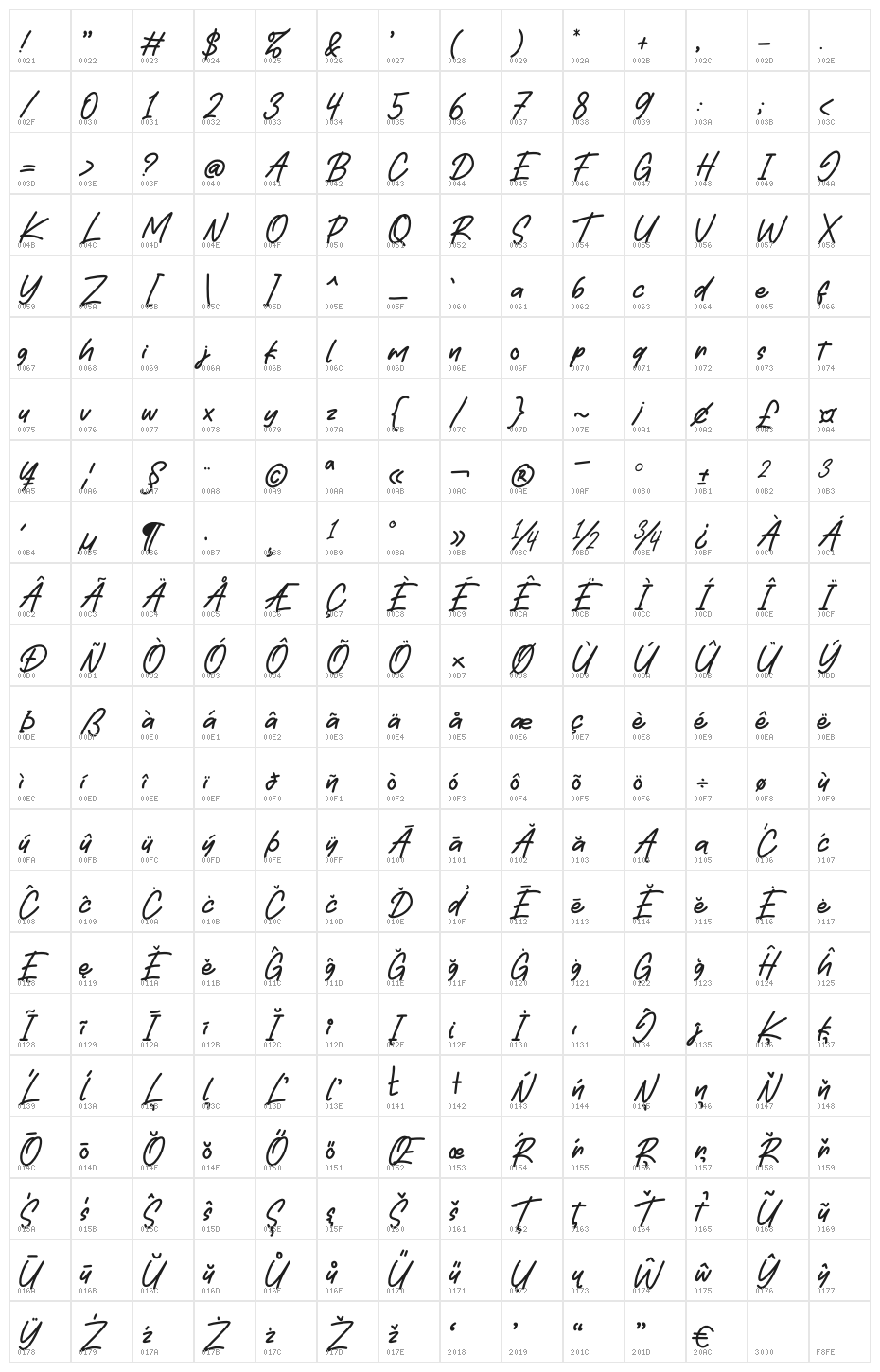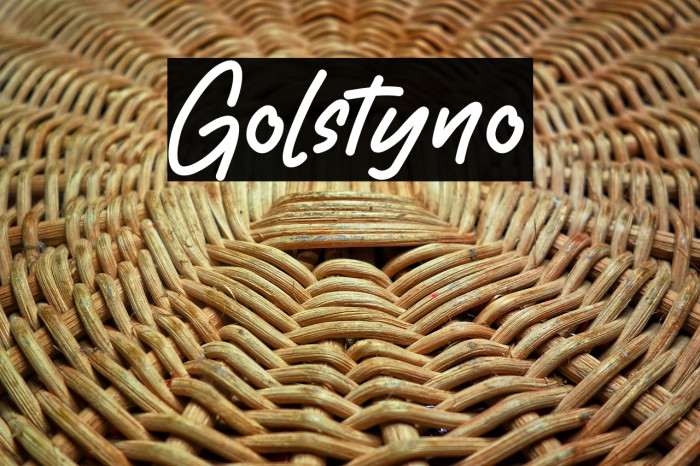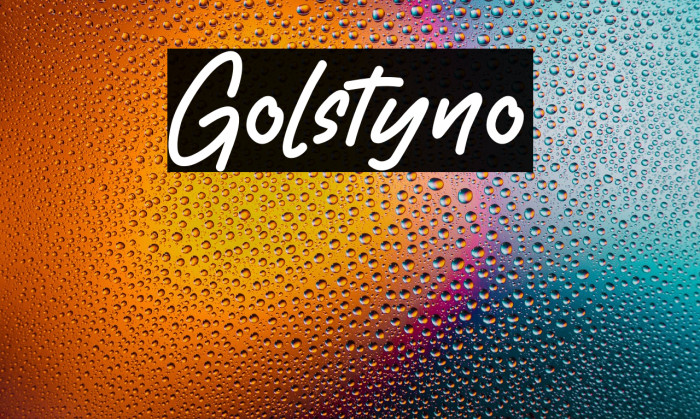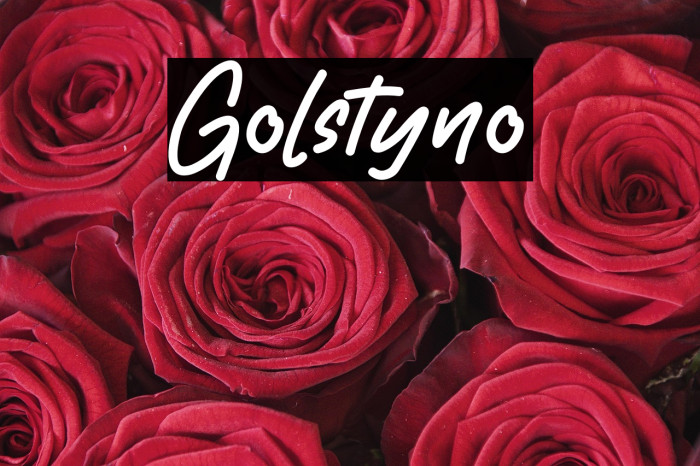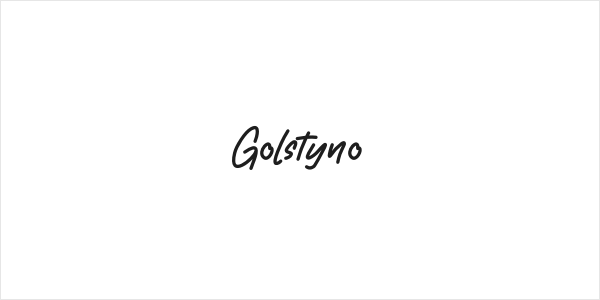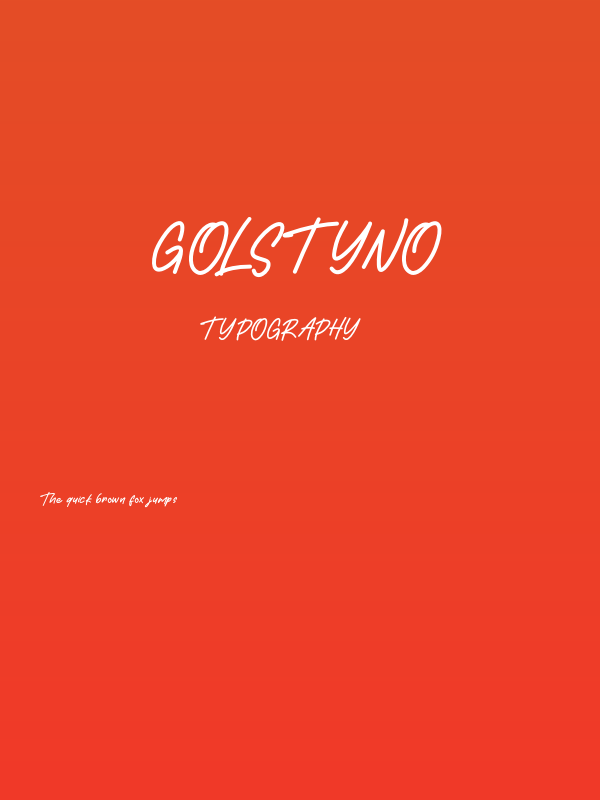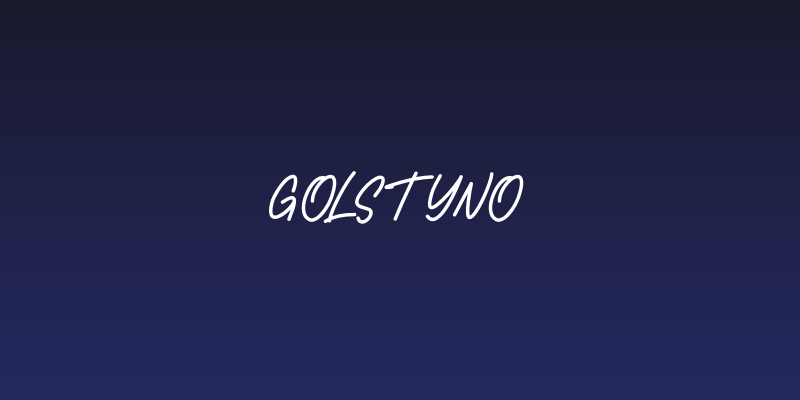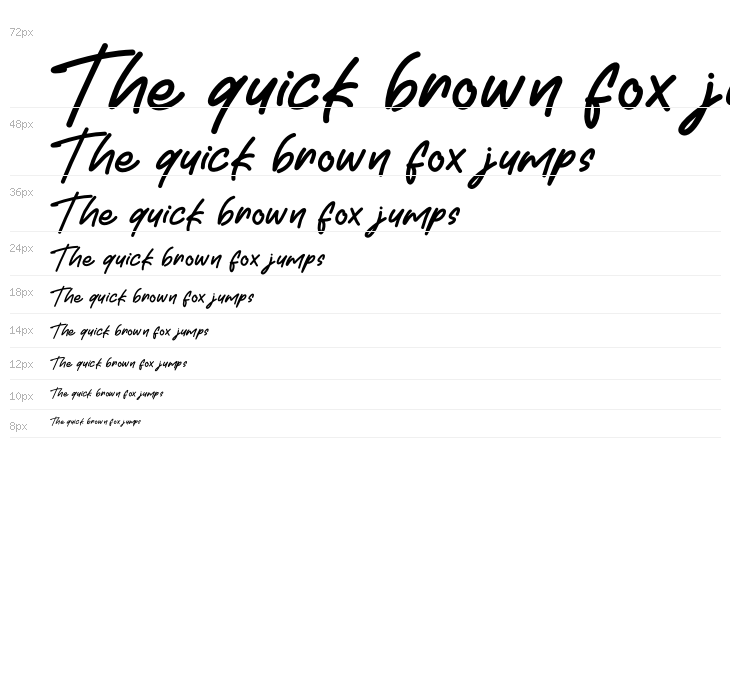
Golstyno Font
Golstyno Description
A casual, handwritten script font with a smooth flow and natural curves, giving it a personal and friendly appearance.
| Overall Style | Casual, Friendly |
| Use Case | Logos, Invitations, Personal notes |
| Proposed Projects | Greeting cards, invitations, personal branding. |